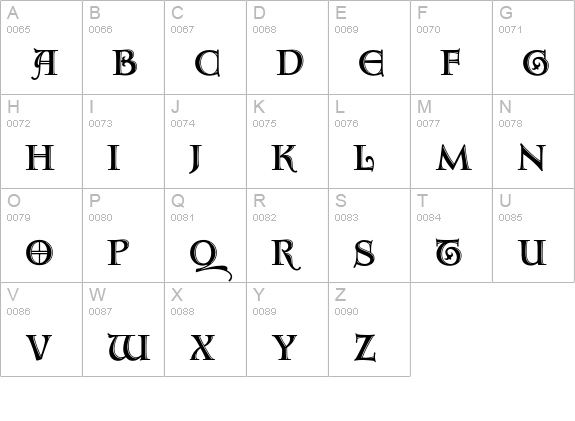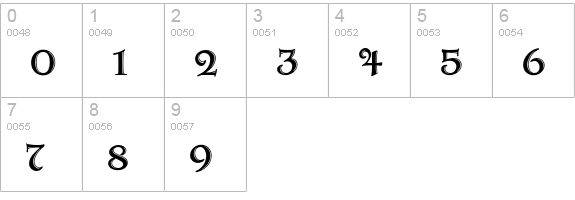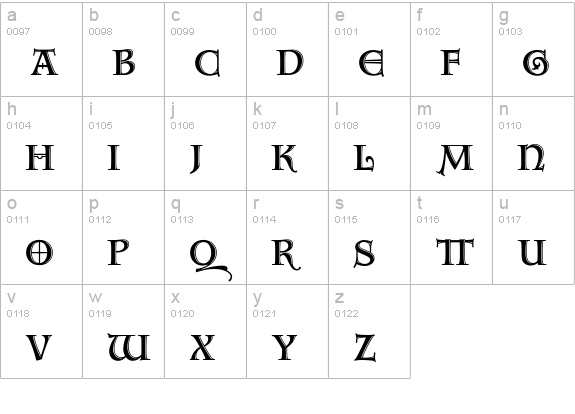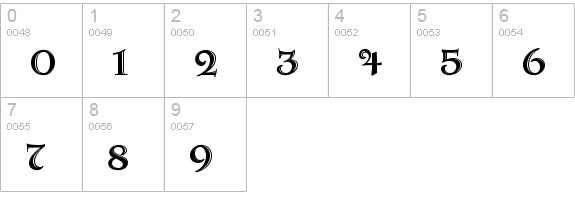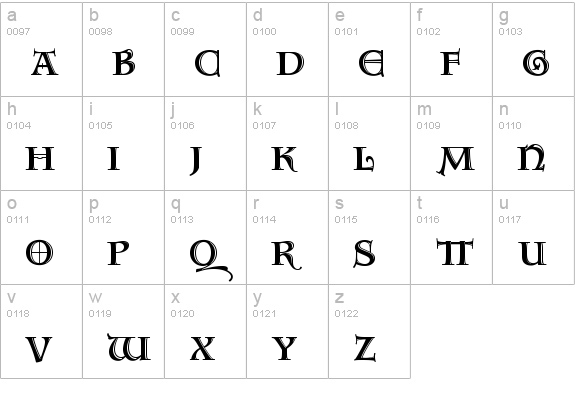
AquitaineInitialsICG-Alt Font Details
AquitaineInitialsICG-Alt font is a stunning and sophisticated typeface that exudes elegance and charm. With its intricate details and classic design, this font is perfect for adding a touch of sophistication to any project. The decorative initials add a unique flair, making this font stand out from the rest. Best of all, AquitaineInitialsICG-Alt font is available for free download at FontsMarket.com. Whether you're working on a branding project, wedding invitation, or any other creative endeavor, this font is sure to elevate your design and leave a lasting impression. Download AquitaineInitialsICG-Alt font today and add a touch of timeless beauty to your projects.